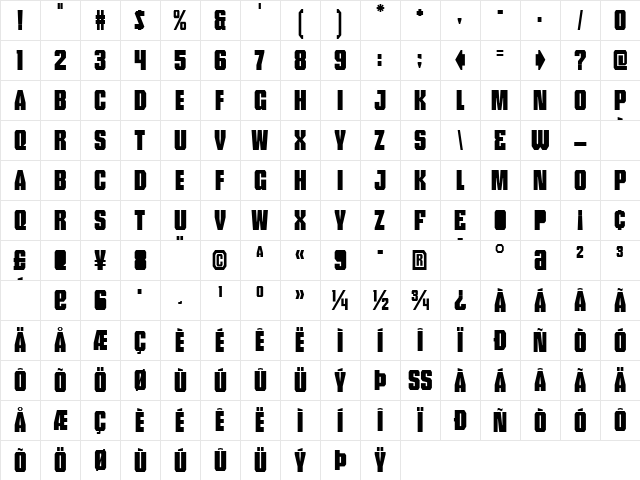
Tank Lite Regular
Foundry: Typodermic
Tank Lite Family
Design Context for Tank Lite
Tank Lite is a composed and adaptable typeface that performs quietly and consistently across a wide range of design contexts.
Pro Tip: Use Tank Lite in both headline and body roles to test its range before committing to a single application.
Who designed the Tank Lite Regular font?
This font was published by Typodermic. Check the technical specs section for copyright and designer details.